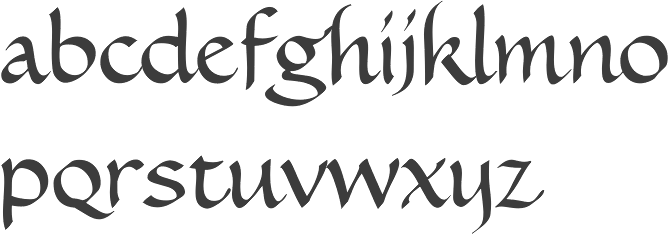
Calligraphics is Paul Veres' outfit in Berkeley, CA. Paul Veres was born in 1944 in Budapest, and started out as a calligrapher and graphic designer. He is the creator of Caterina (1999-2004, Psy/Ops; a calligraphic sans used in some places by movie director Francis Ford Coppola), and of Linotype Banjoman Roman (1996, an avant-garde font) and Linotype Aperto at Linotype (1995-1996: a lapidary typeface). Fonts at Calligraphics: Caterina (1998), Aperto (1995, a stressed sans family), Harmonica (2005, script), DemiTasse (2001), Gargoyle (2001, a rounded informal script) and Espresso (2001). FontShop link. Linotype link. Klingspor link. View Paul Veres's typefaces. |